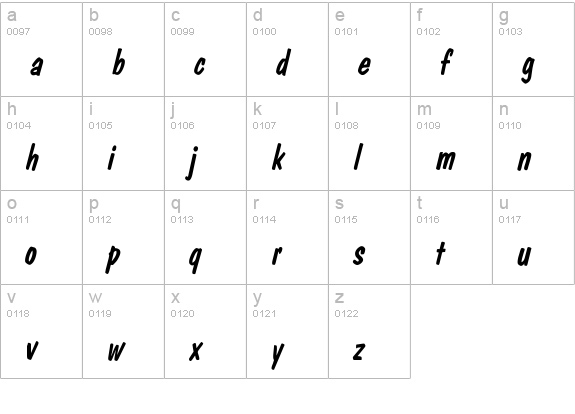
OPTIDom-Diagonal Font Details
Introducing OPTIDom-Diagonal font, a sleek and modern typeface designed to make a bold statement in your projects. With its sharp angles and contemporary style, OPTIDom-Diagonal is perfect for adding a touch of sophistication to any design. Whether you're working on a branding project, website design, or print materials, this versatile font is sure to impress. What's even better is that OPTIDom-Diagonal is available for free download at FontsMarket.com. You can easily access this eye-catching font and elevate your designs without breaking the bank. Don't miss out on the opportunity to enhance your creative projects with the dynamic and stylish OPTIDom-Diagonal font today!